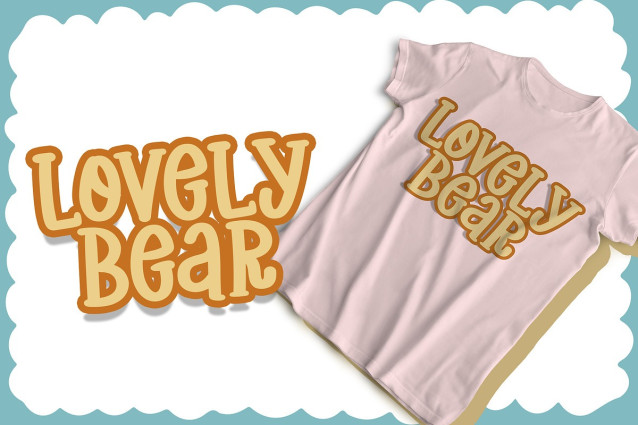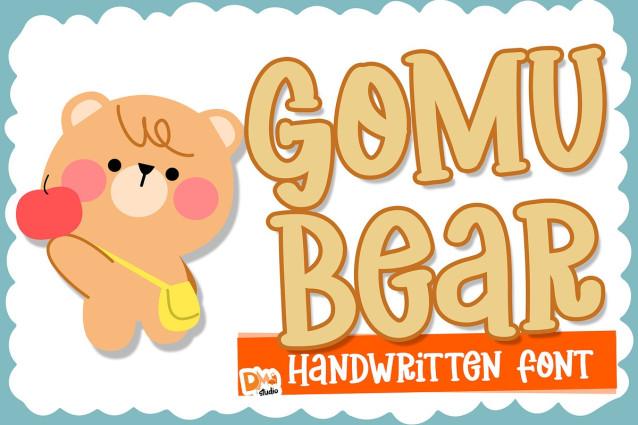
Gomu Bears Font
Gomu Bear Font, a delightful and whimsical typeface that brings the charm of adorable bears to your designs. This font is perfect for adding a playful touch to children’s books, merchandise, logos, and a variety of creative projects.
Features: Cute Bear Design: The Gomu Bear Font features lovable bear-inspired elements in each character, adding a unique and charming aspect to your typography.